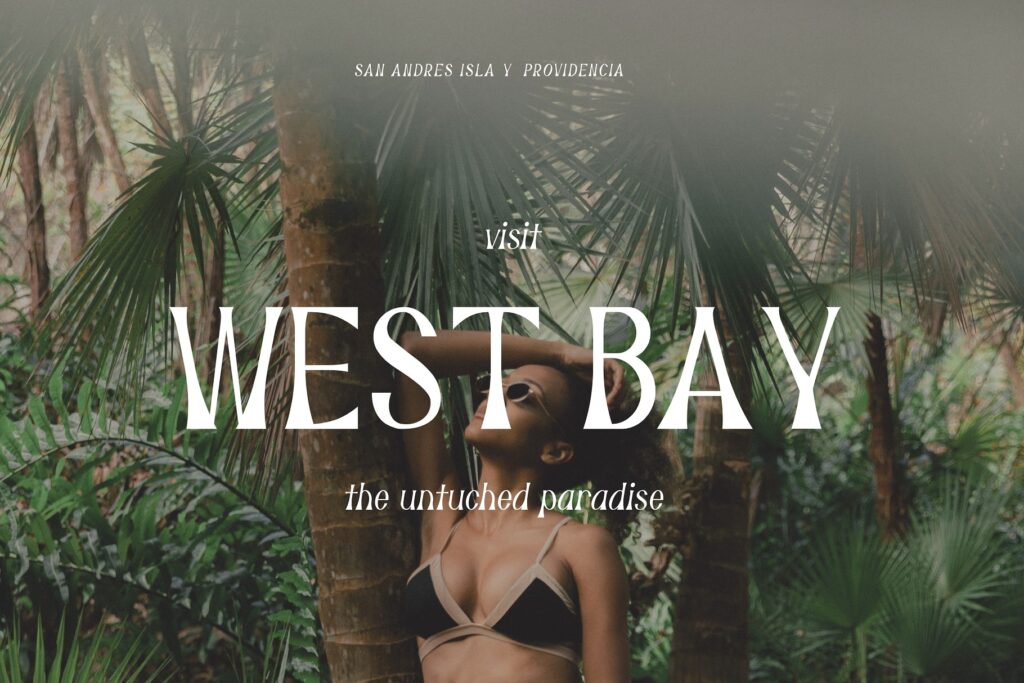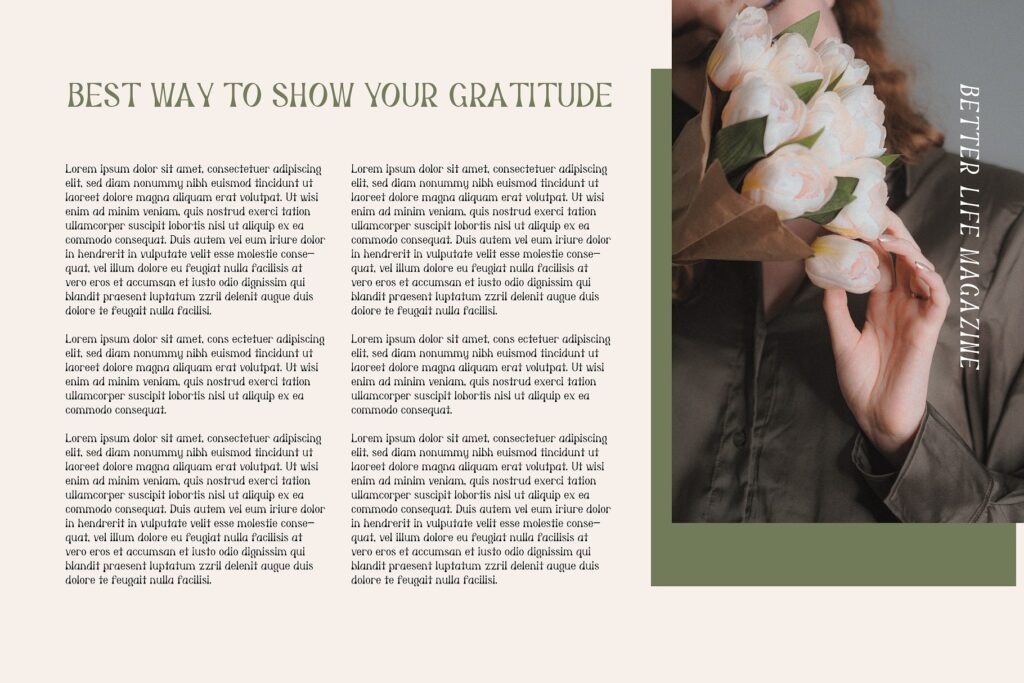
Delphine is a modern and elegant font that exudes sophistication and timeless charm. With its sleek and refined letterforms, this typeface effortlessly combines classic elements with a contemporary twist. Its clean lines and graceful curves lend a sense of luxury and refinement to any design.
Delphine is perfect for adding a touch of elegance to wedding invitations, high-end branding, fashion editorials, and other upscale projects. Its versatility allows it to shine in both display and body text, while its attention to detail ensures legibility and readability at any size. Elevate your designs with Delphine and let its understated beauty and refined aesthetics captivate your audience.